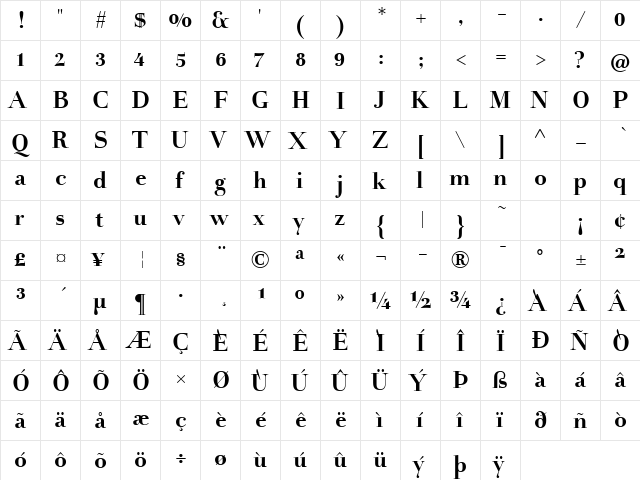
HolmenLF-Bold Regular
| Foundry | FSI FontShop International GmbH |
| Designer | Per Jorgensen |
Design Context for HolmenLF-Bold Typeface
HolmenLF-Bold takes a measured approach to typography — its balanced proportions and neutral character make it a reliable workhorse for both digital and print work. Its bold stroke weight gives it real presence on the page.